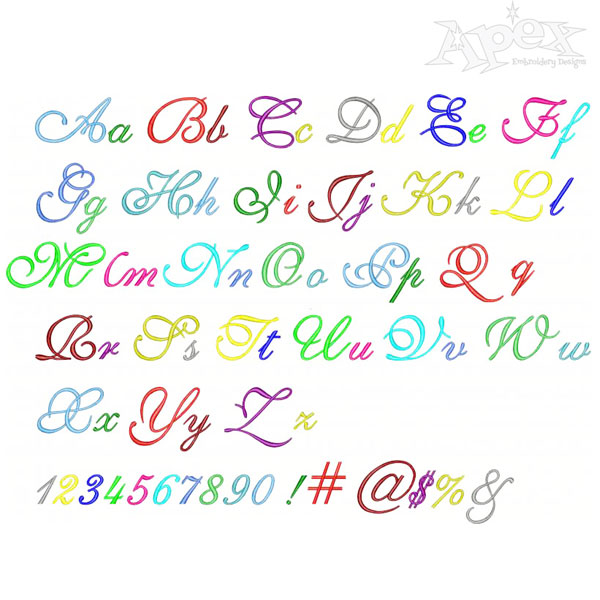
Roatan Embroidery Font
The Roatan Embroidery Font. This is one of our favorite fonts very unique and different. Letters stitch and sew out great on all embroidery sewing machines. Size 1.5" & 2.5" Upper case, Lower case, Symbols and Numbers.